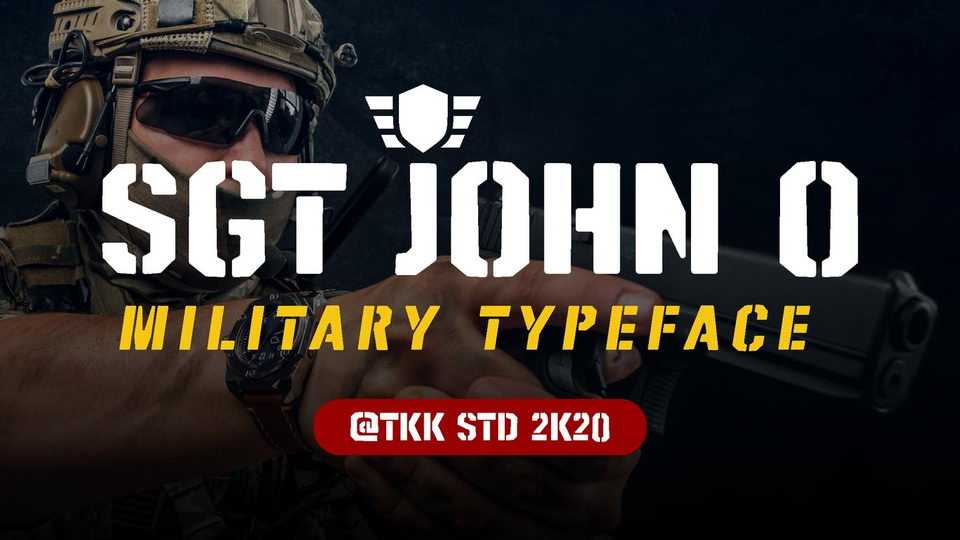
Download SGT. Jhon O font, a strong stencil cutout typeface that emphasize the military shape you took. The rounded corner doesn’t take away the sturdy and well command structure SGT JHON O has.